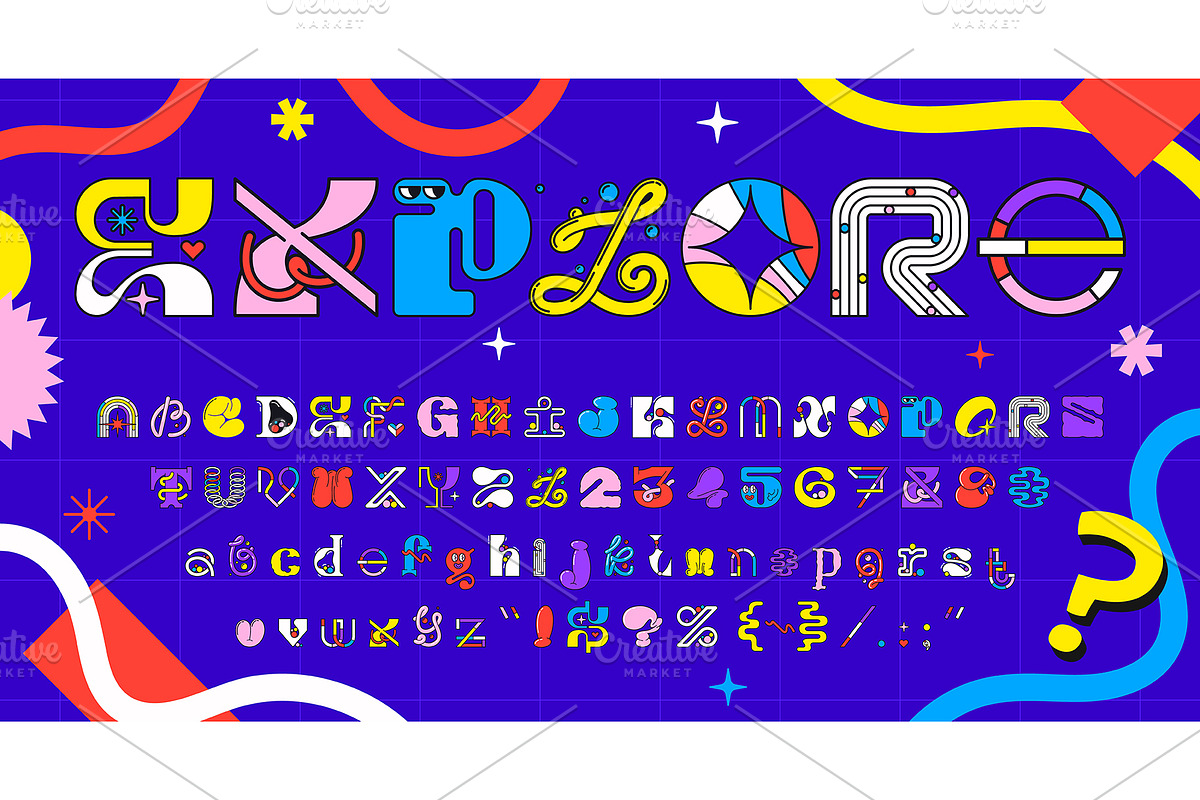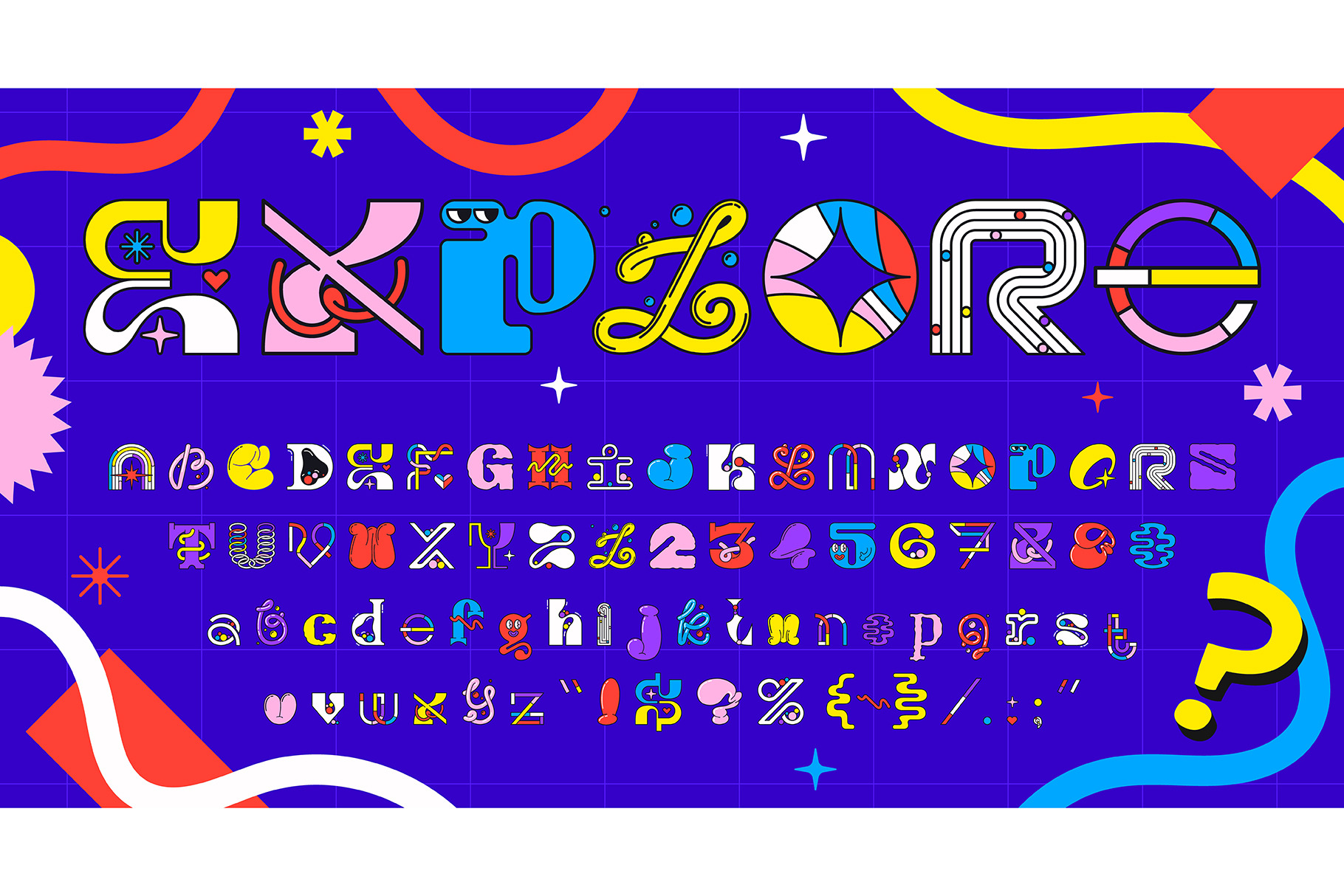
Trippy y2k font, modern geometric
Trippy y2k font, modern geometric brutal typeface letters. Cartoon groovy colorful psychedelic alphabet. Vector full abc set of uppercase and lowercase characters, numbers and punctuation symbols